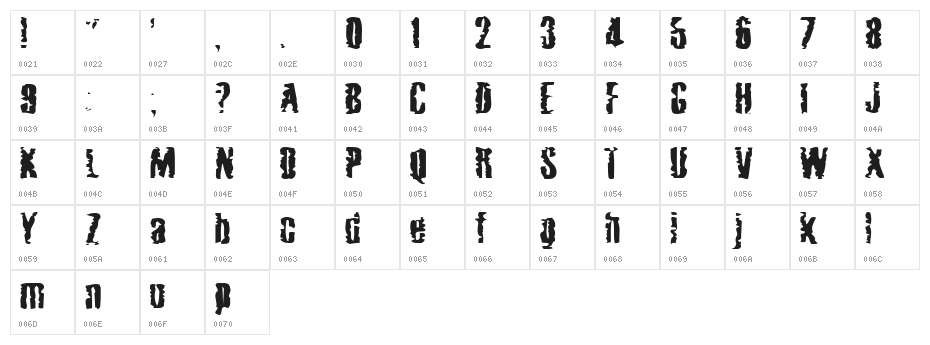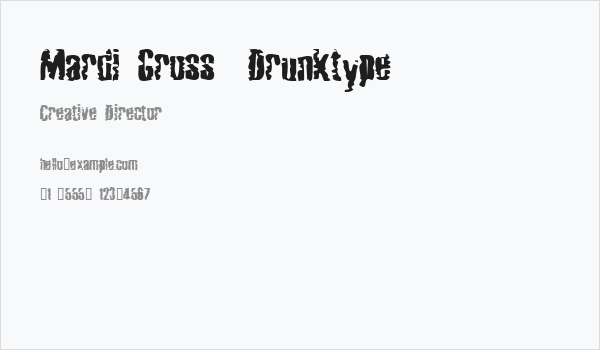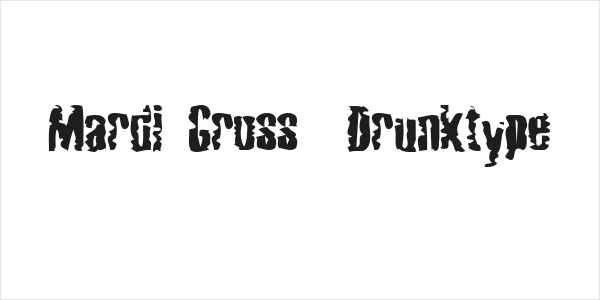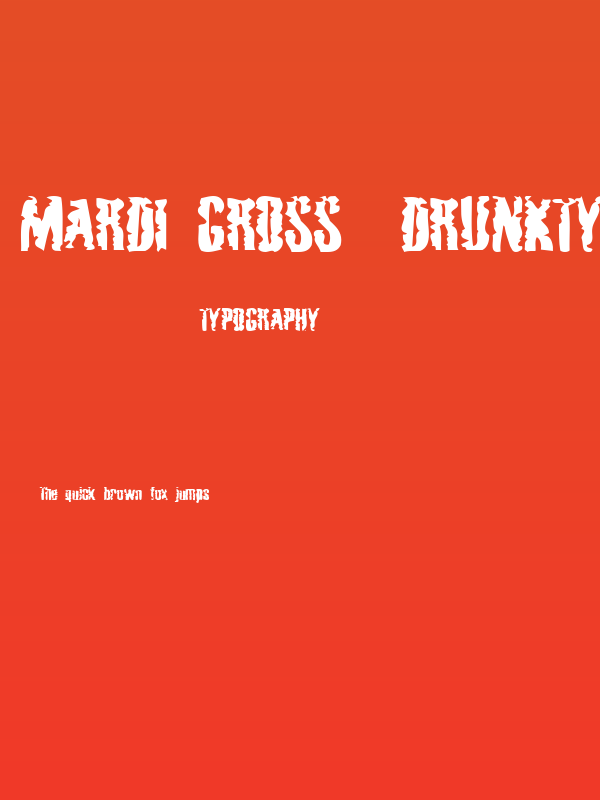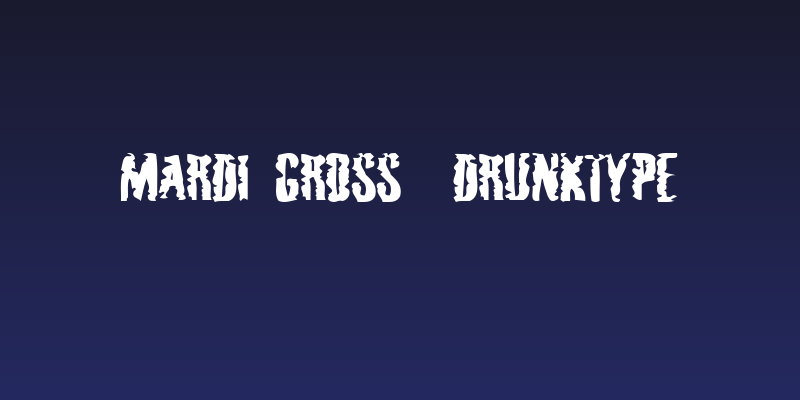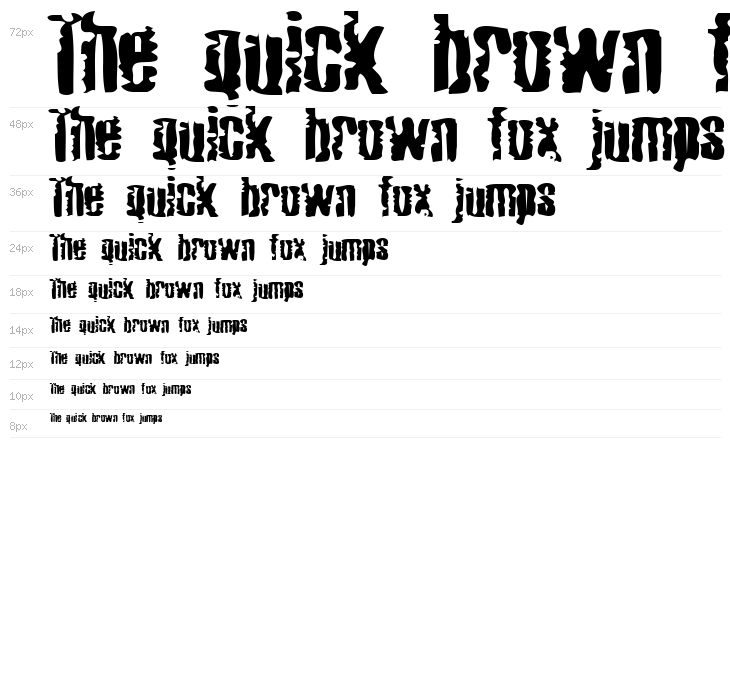
Mardi Gross Drunktype Font
Mardi Gross Drunktype Description
This font features a bold and dramatic style with highly irregular and jagged edges, reminiscent of torn paper or distressed textures. The characters are heavily stylized, giving them a chaotic and energetic appearance. The uppercase and lowercase letters maintain a consistent height, while the numbers and special characters follow the same rugged design. This font is designed to capture attention with its unique and rebellious aesthetic, making it ideal for projects that require a strong visual impact.
| Use Case | Headlines, Posters, Logos |
| Proposed Projects | Ideal for music album covers, event posters, Halloween-themed designs, and any project needing a bold, edgy look. |